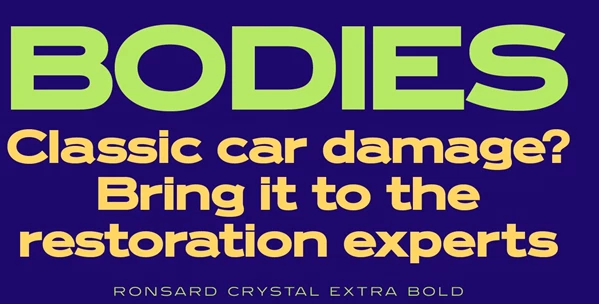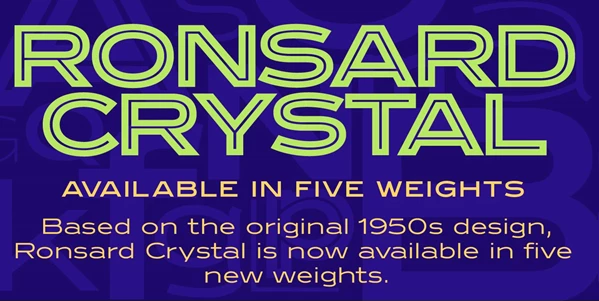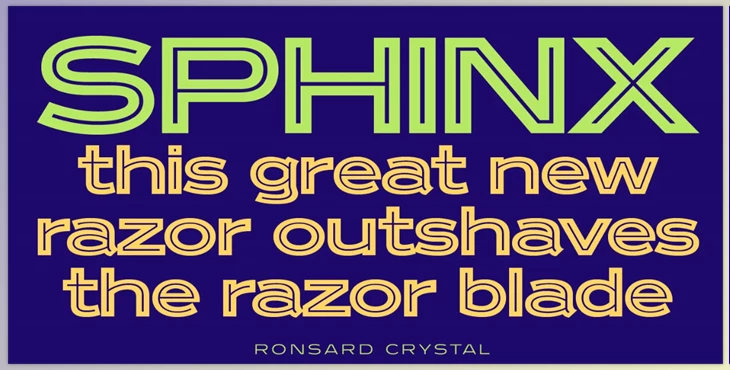
Red Rooster - Ronsard Crystal Font Family:
Ronsard Crystal Font Family is a wide sans serif family of fonts based on a photo-lettering font from the 1950s. Ronsard Crystal was designed by Steve Jackaman and Ashley Muir in 2009 and is based on the original single-weight design of an unusual (for the time) photo-lettering font. However, in this case, the designers added four additional traditional weights, making the font family even more useful for text from small to large.
Ronsard Crystal is a large, blocky font that works perfectly for modern advertising campaigns. The lightweight is an excellent option for paragraph text, while the inline font works perfectly to draw attention and look fantastic wherever it's used. The Ronsard Crystal Font Family is a blocky sans serif font with a unique look and feel, suitable for headlines, body copy, and graphic design.